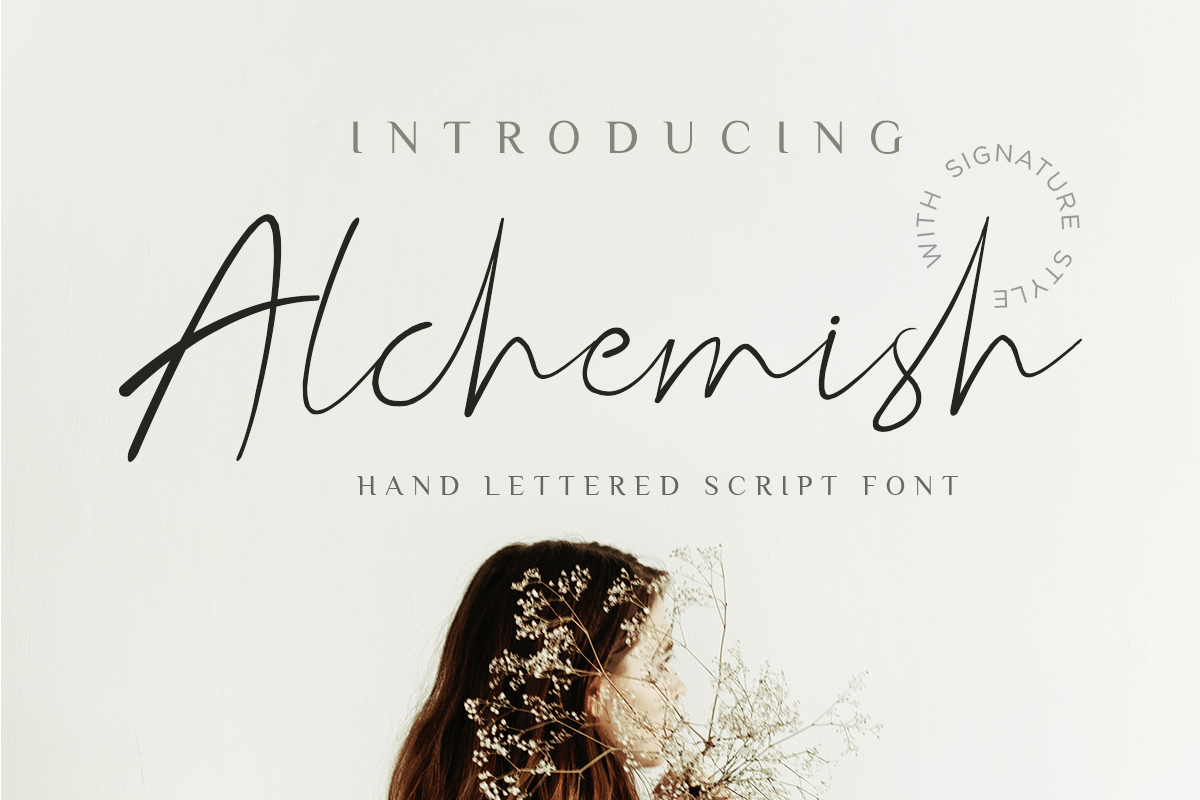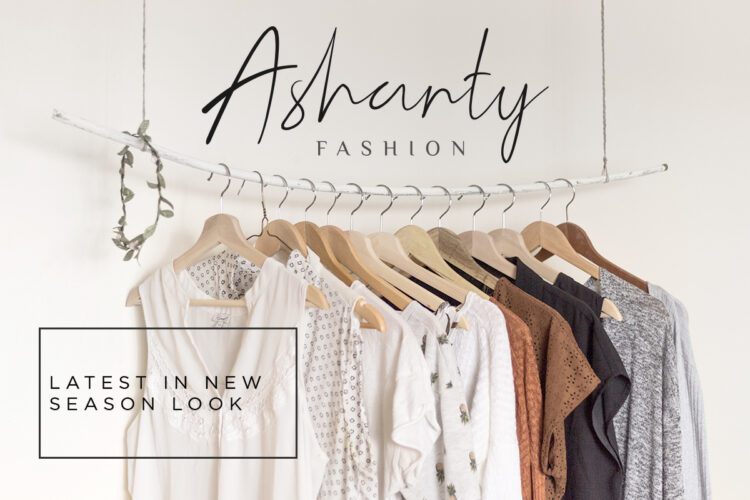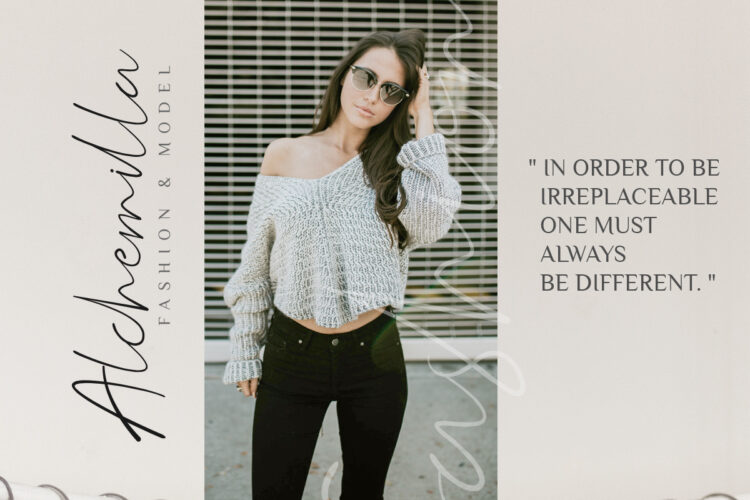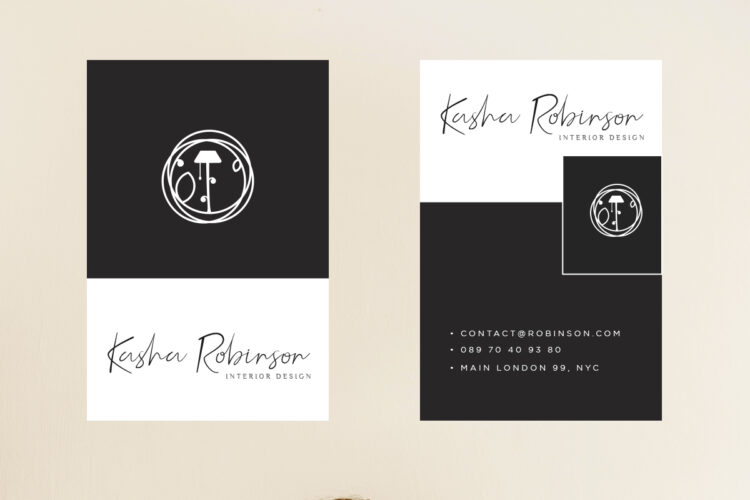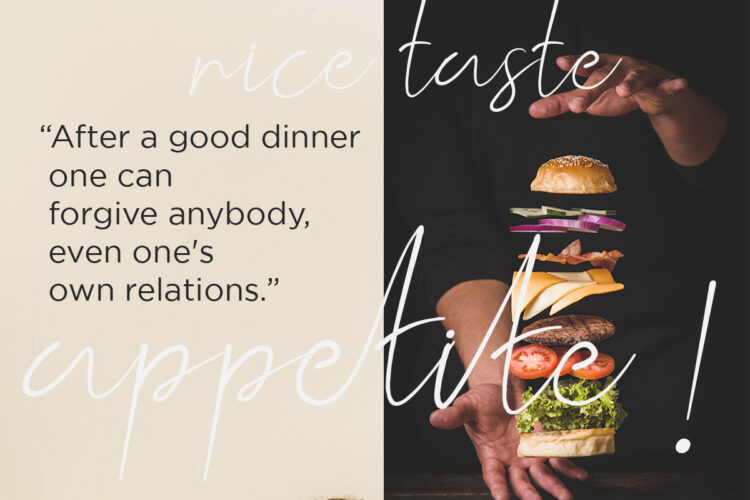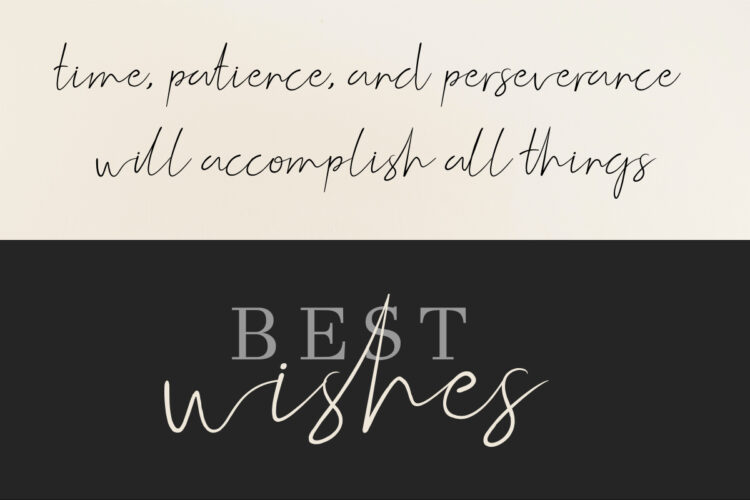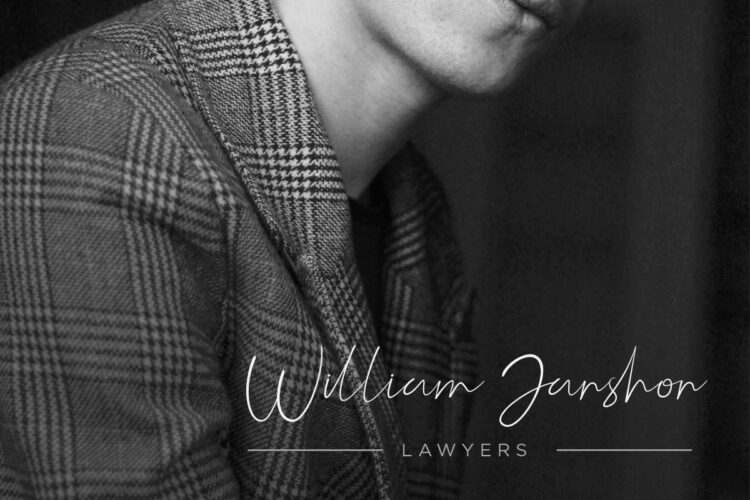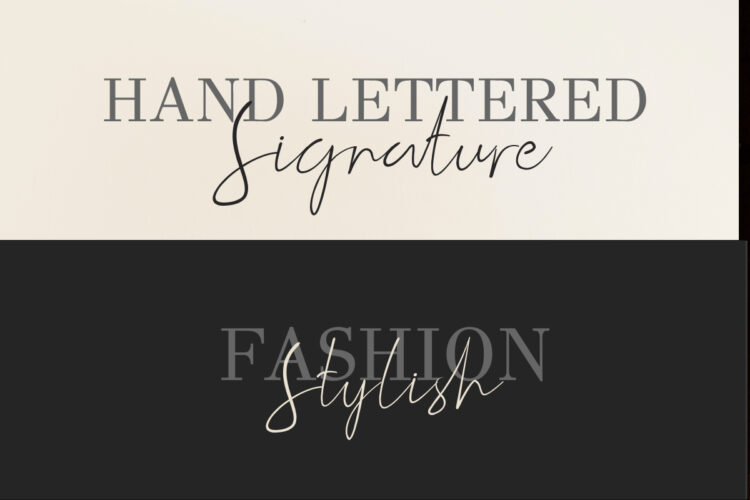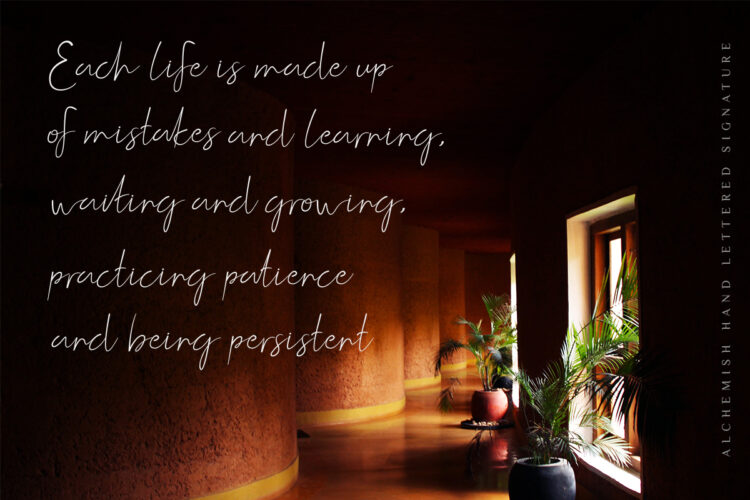
Alchemish – Hand Lettered Font
Alchemish is a strikingly light, yet elegant handwritten font with a contemporary charm. Fall in love with its authentic feel, and turn any design project into a stand out.